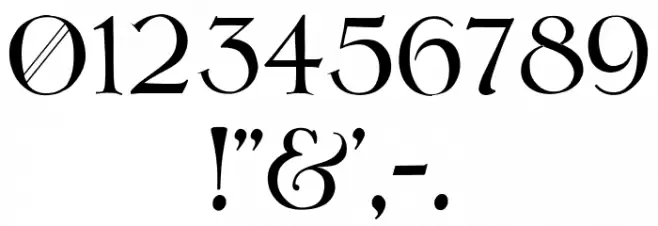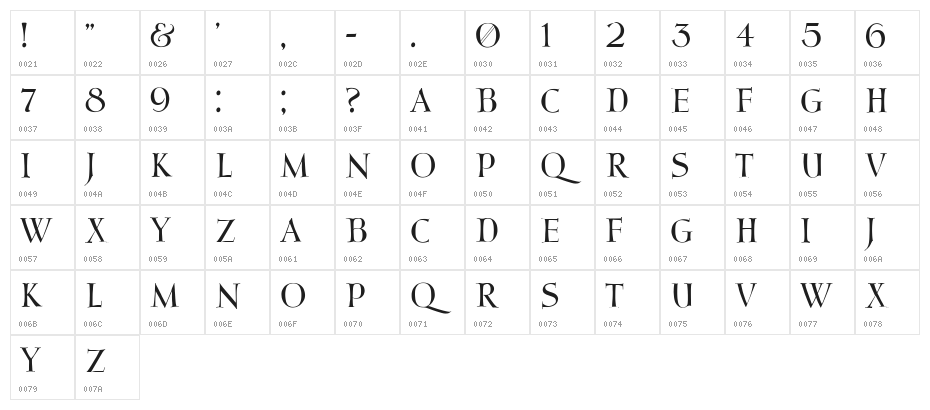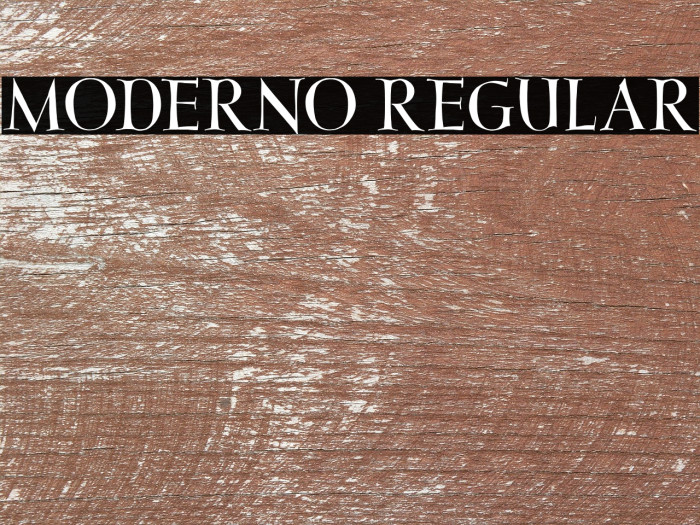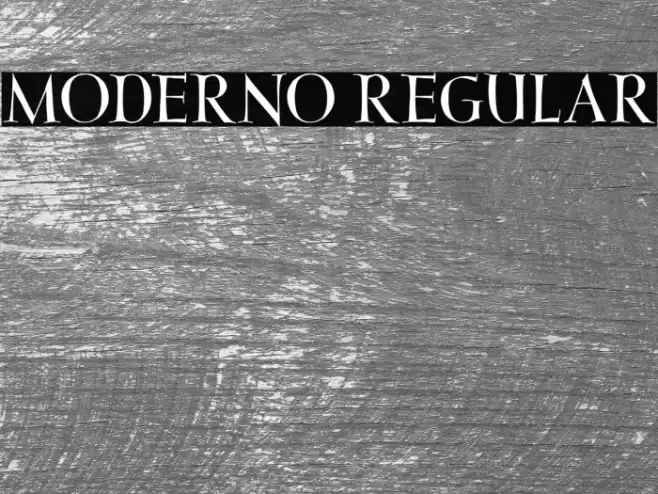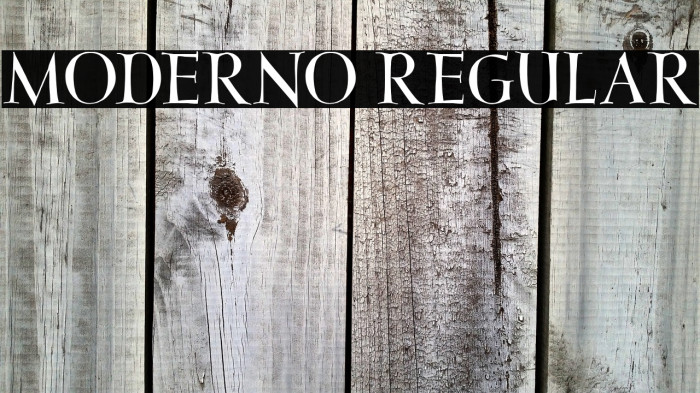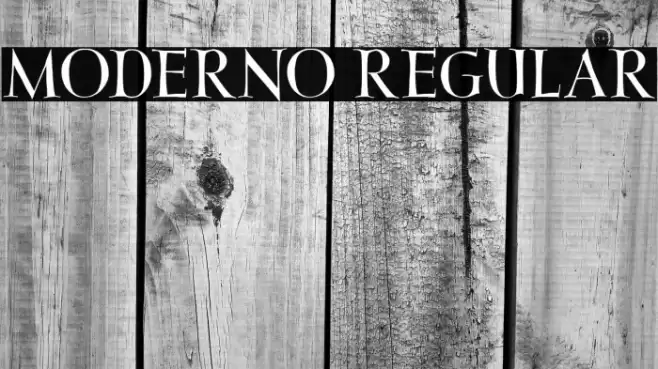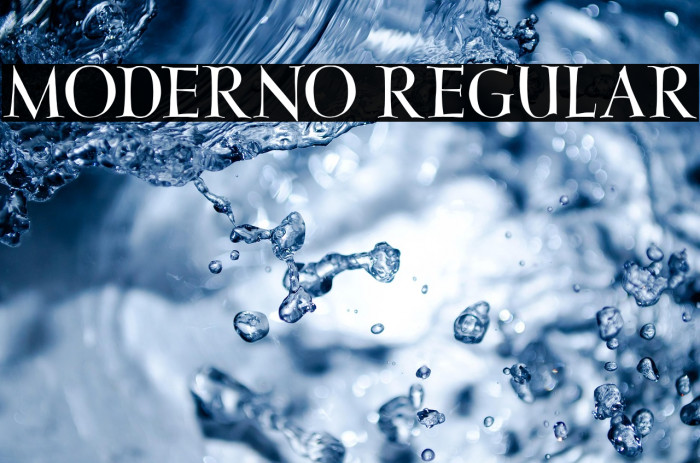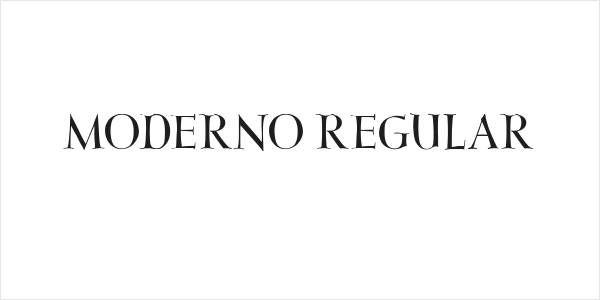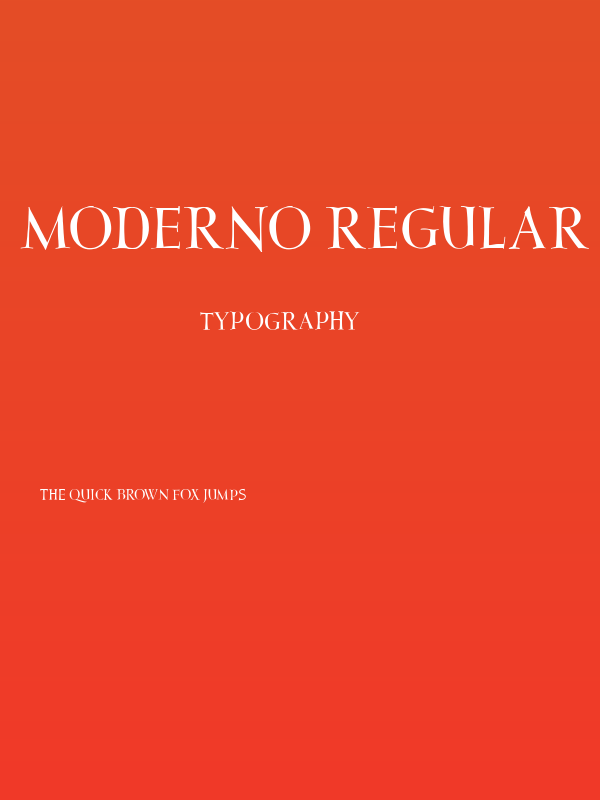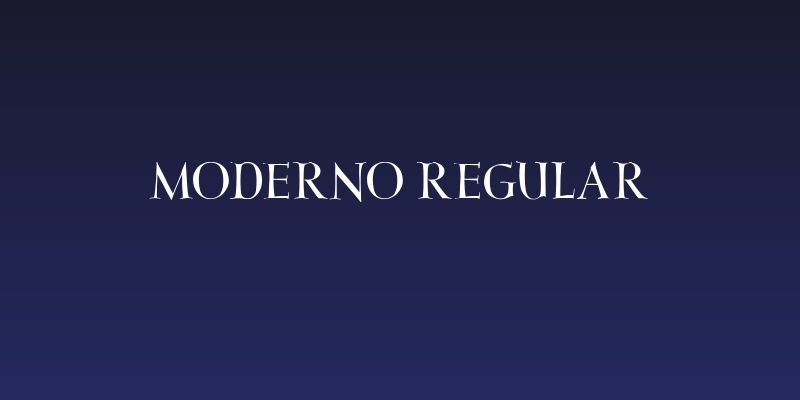
Moderno Regular Font
Moderno Regular Description
This font exhibits a modern and elegant style with a touch of classic sophistication. The characters are designed with sharp, clean lines and subtle curves, giving them a refined appearance. The uppercase letters are particularly striking, featuring elongated serifs and a slight contrast in stroke thickness that adds to their visual appeal. The lowercase letters maintain a consistent style, complementing the uppercase with their graceful forms. The numerals are distinct and easy to read, while the special characters add a unique flair to the overall design. This font is versatile, suitable for both digital and print media, and can be used to create a strong visual impact.
Use CaseHeadlines, Logos, Editorial design
Proposed ProjectsIdeal for branding, editorial design, advertising, and high-end product packaging.